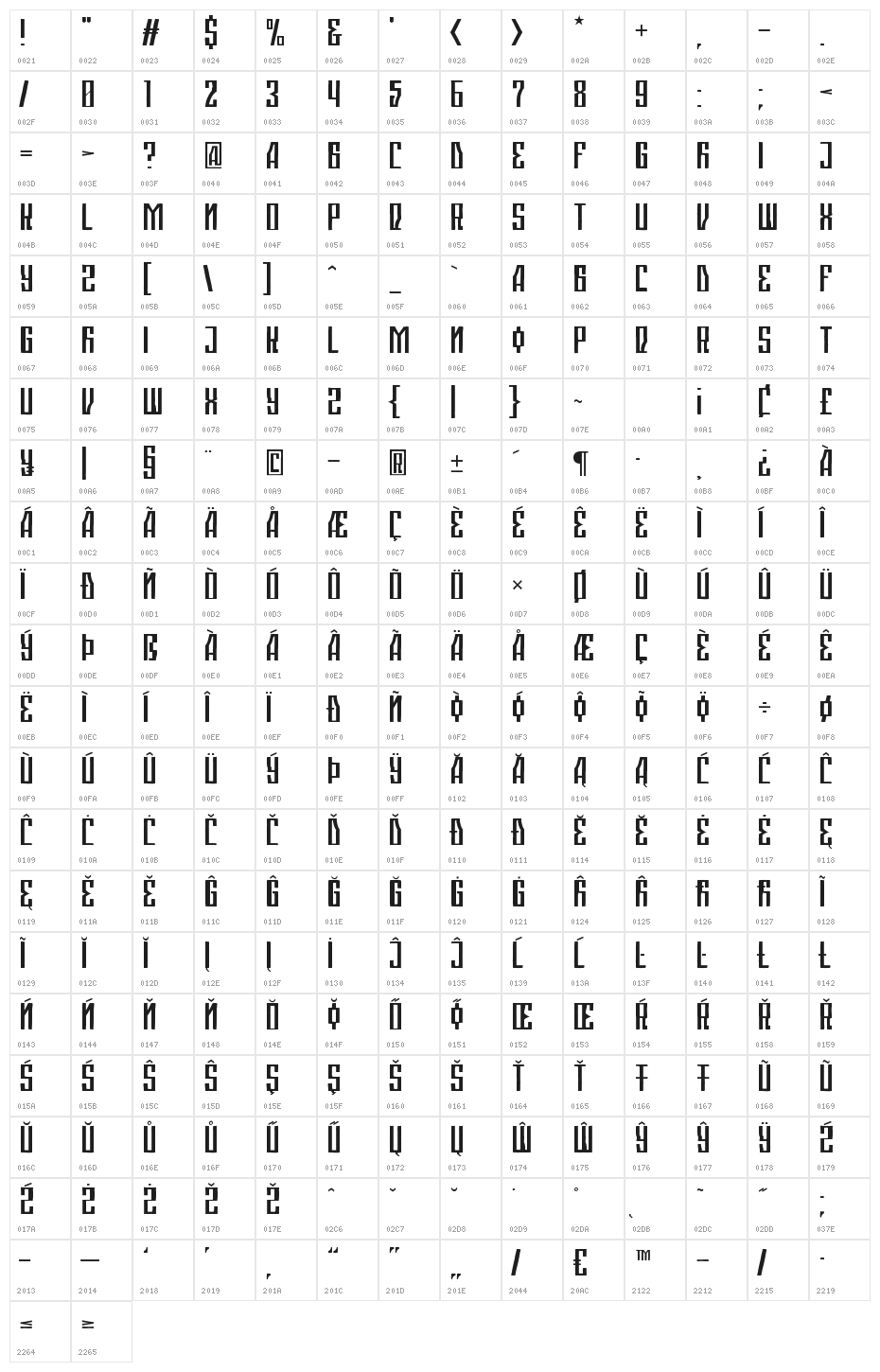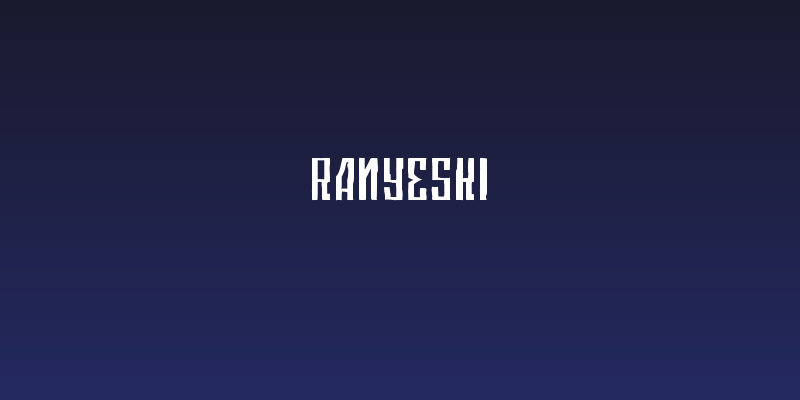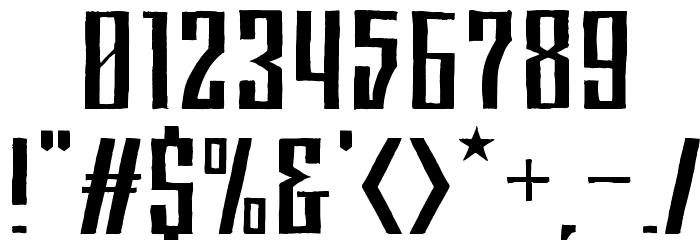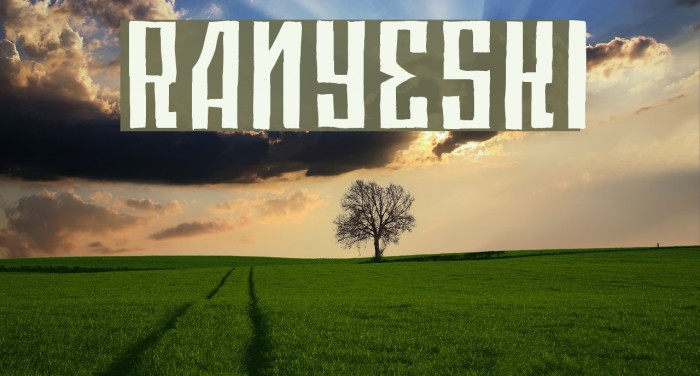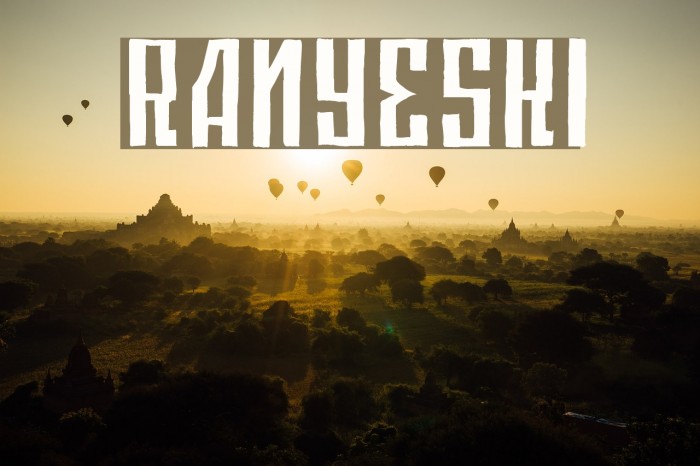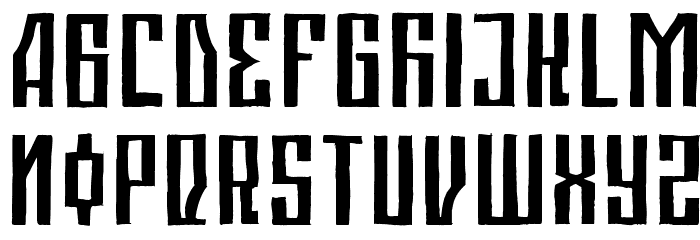
Ranyeski Font
Ranyeski Description
This font features a bold and striking design with a distinctly modern and edgy feel. The characters are constructed with sharp angles and a slightly condensed form, giving it a unique and impactful appearance. The uppercase letters are particularly prominent, with a uniform height and width that create a cohesive look. The numbers and special characters maintain the same boldness, ensuring consistency across all glyphs. The font's design is reminiscent of stencil or industrial styles, making it suitable for projects that require a strong visual presence. Its high contrast in stroke thickness adds to its dynamic and attention-grabbing nature.